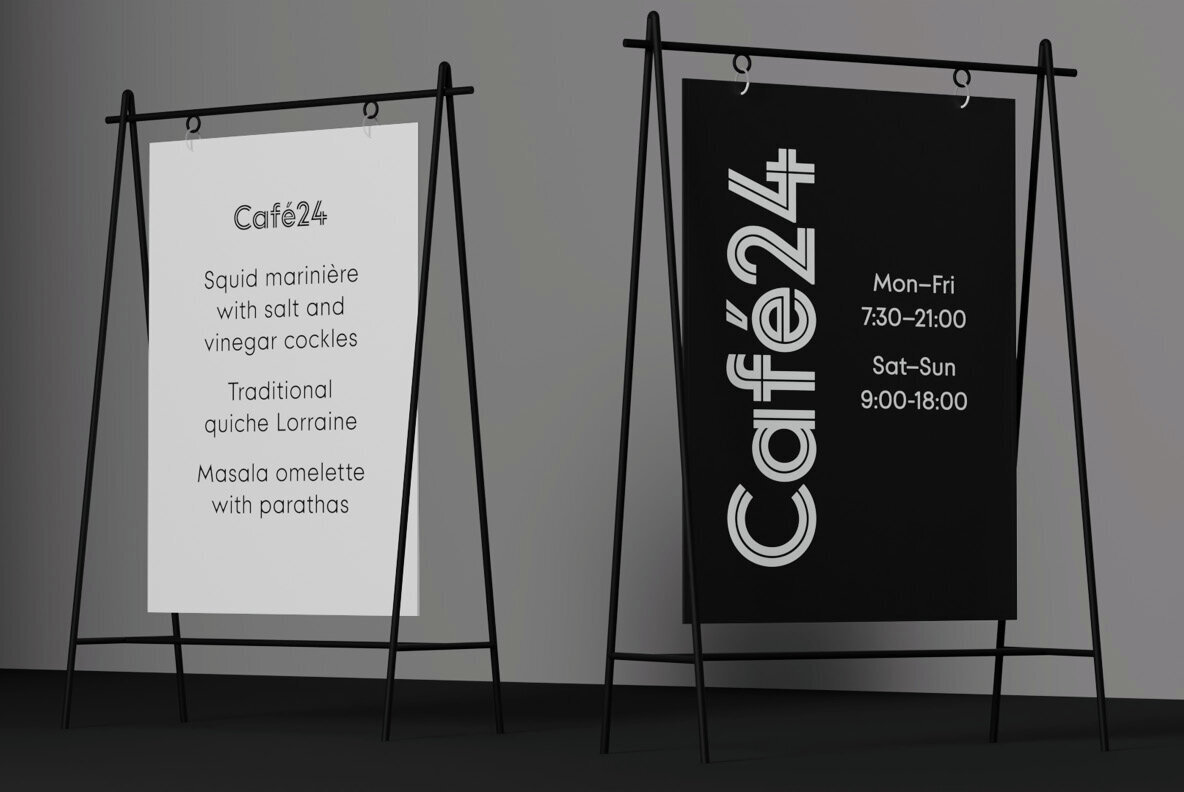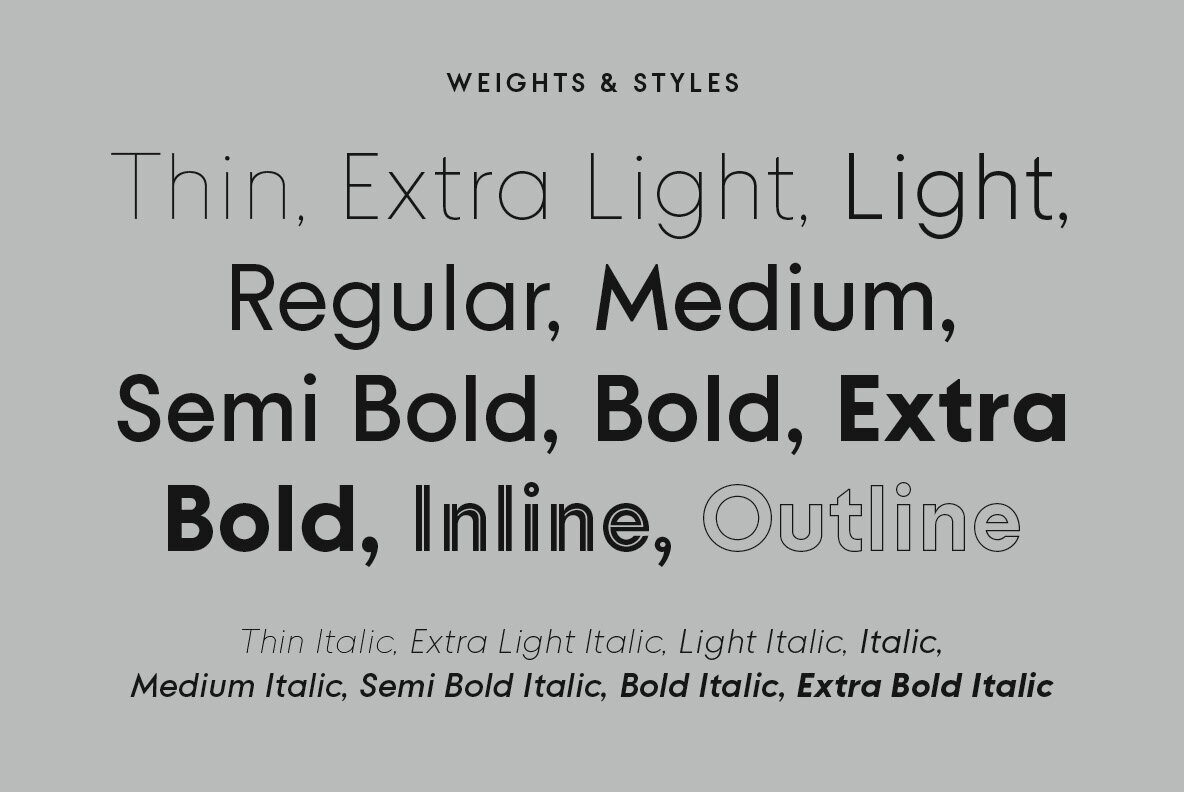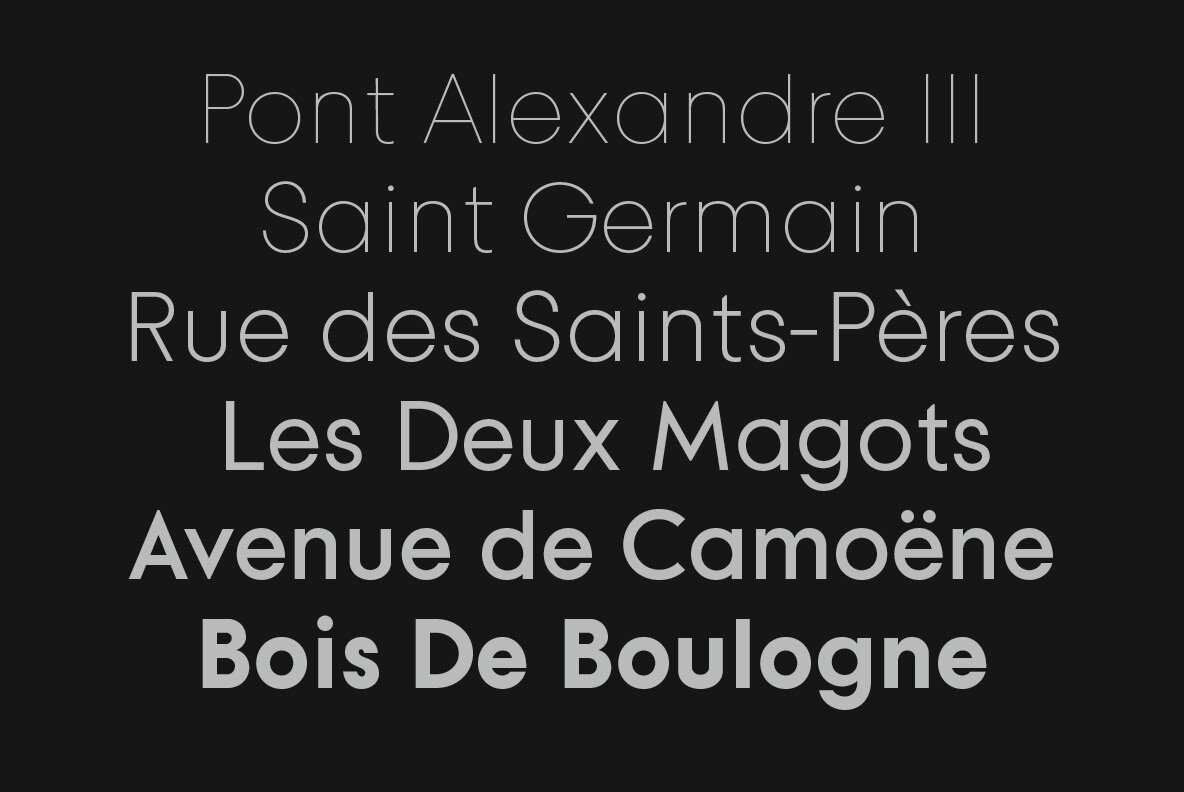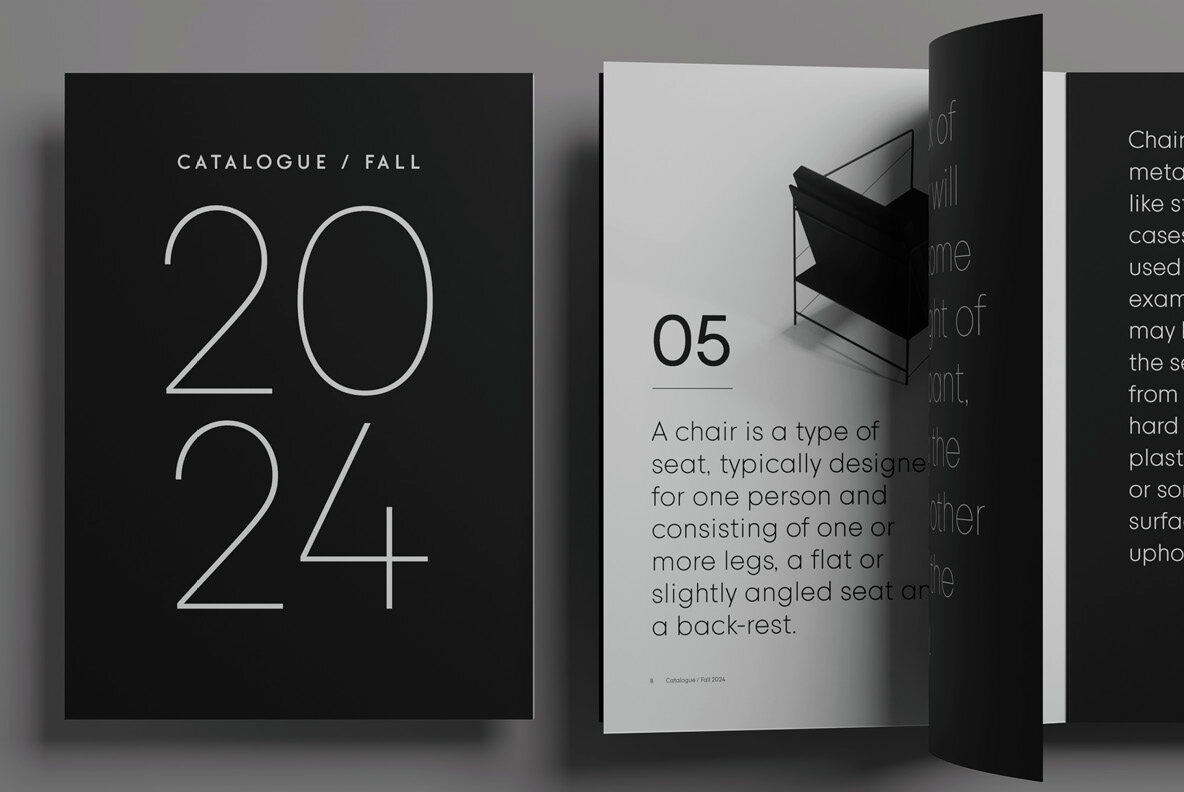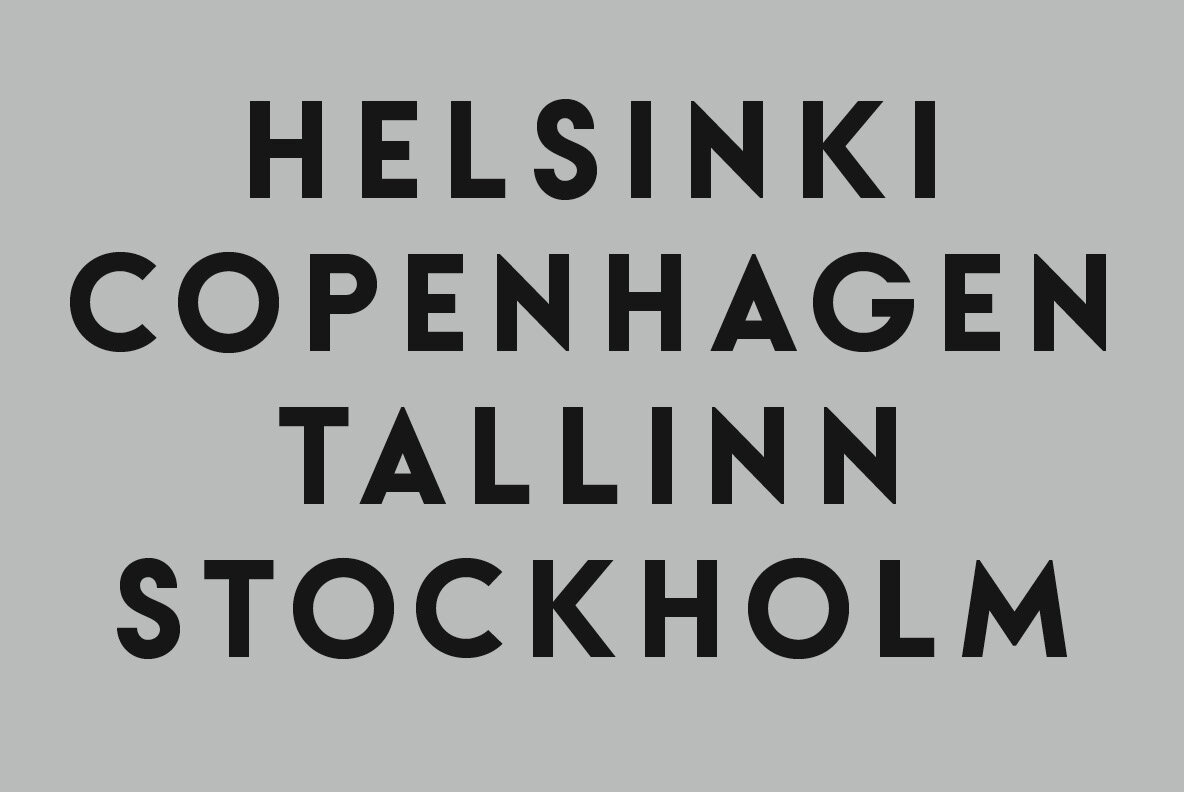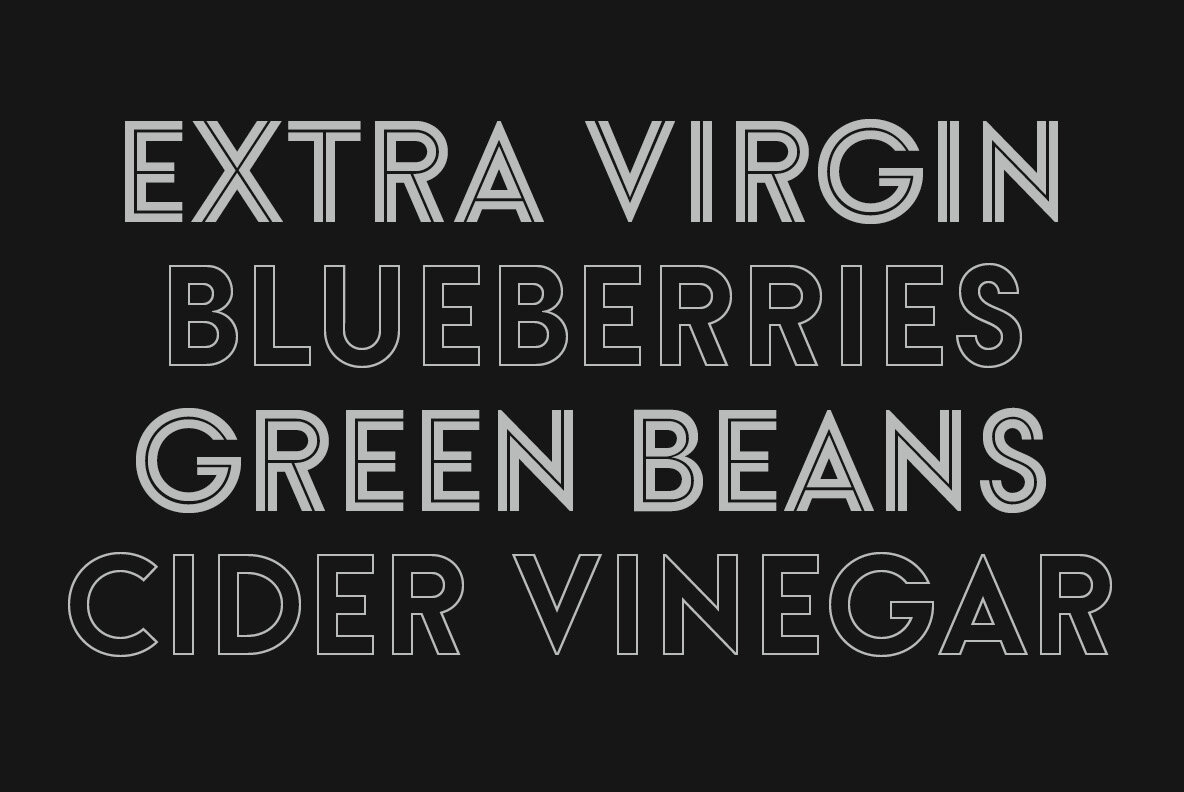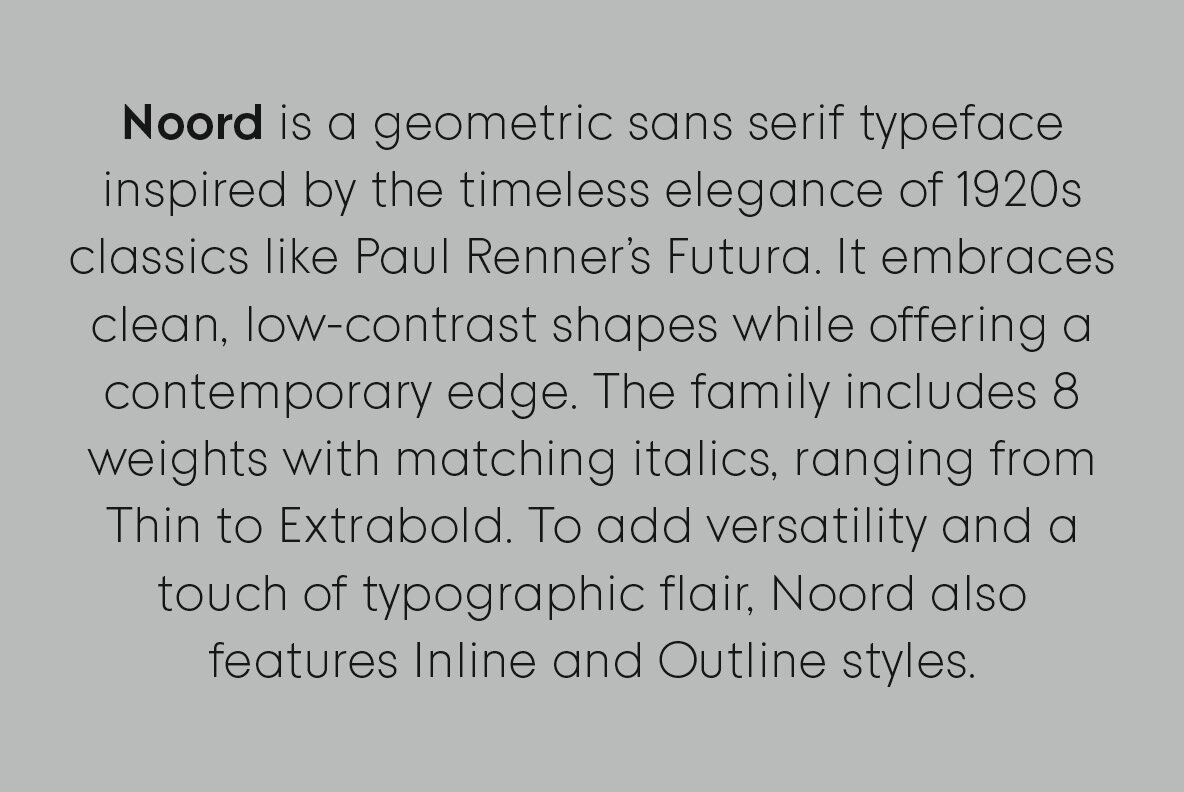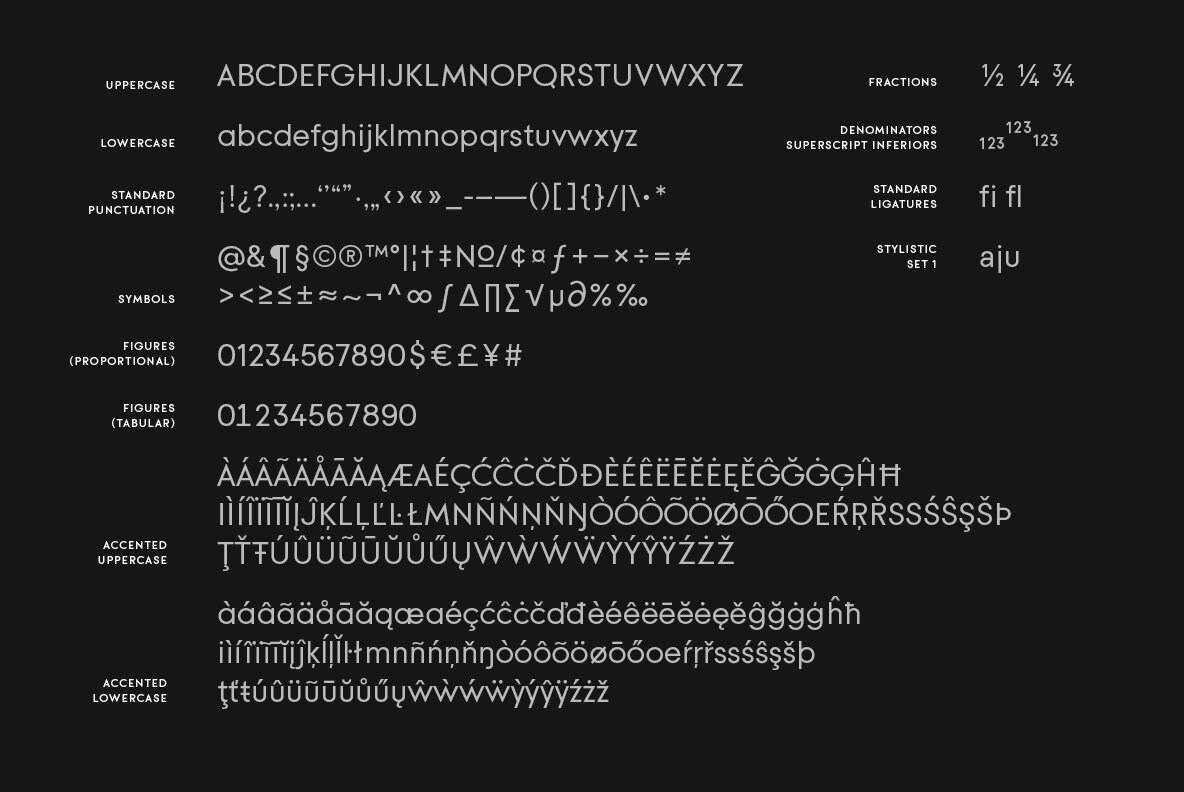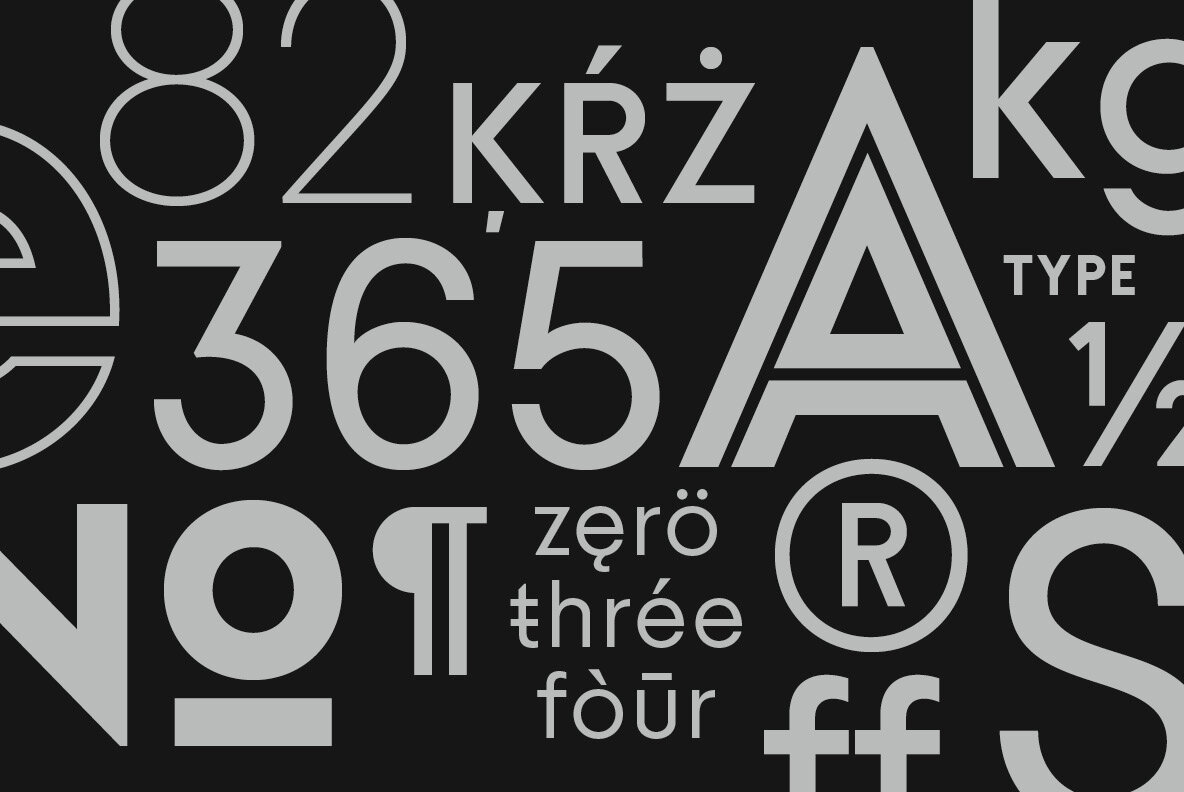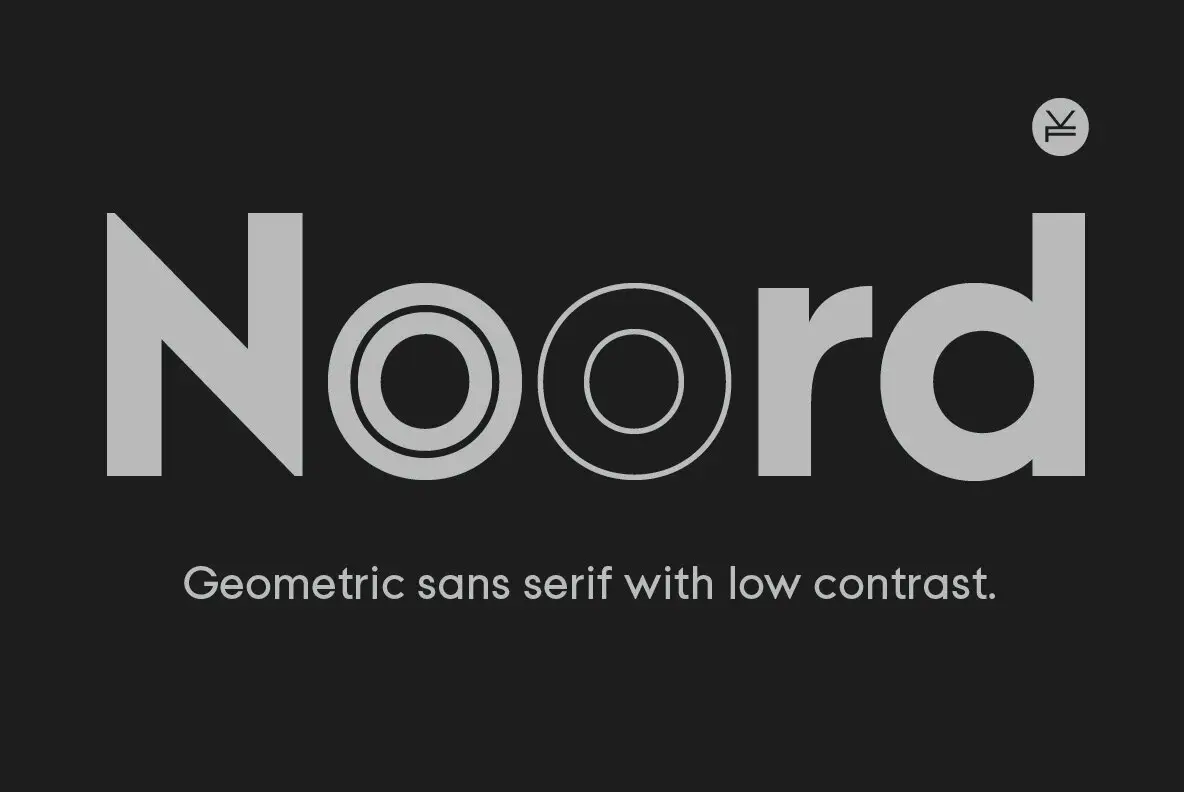
Noord Font
Noord is a geometric sans serif font inspired by 1920s modernist classics like Paul Renner’s Futura, emphasizing clean shapes and low contrast. With eight weights from Thin to Extra Bold, each paired with matching italics. To add variety and typographic flair, the Noord font family includes two distinctive display styles: Noord Inline and Noord Outline.